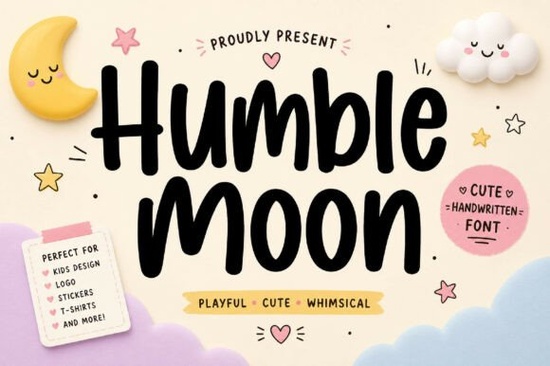
If you've been searching for a bold handwritten font that feels both modern and approachable, Humble Moon Font is worth a close look. It's a display typeface with smooth, playful strokes that work beautifully across logos, packaging, social media graphics, and merchandise. Whether you run a small business or love personal creative projects, this font brings a friendly, eye-catching personality to anything you design.
What Makes Humble Moon Font Stand Out?
Plenty of handwritten fonts exist, but not all of them balance boldness with warmth. Humble Moon does both. The letterforms are thick enough to command attention on a screen or printed surface, yet the natural flow of the strokes keeps everything feeling relaxed and approachable.
Here's what you get with this font:
- Bold weight that reads clearly at large and small sizes
- Smooth, rounded strokes with a hand-lettered feel
- Modern character shapes that avoid looking overly casual or childish
- Versatile punctuation and numerals for complete design layouts
It's the kind of typeface that makes a brand feel human without sacrificing professionalism.
What Can You Actually Use It For?
This is where Humble Moon really proves its value. It fits into a wide range of creative projects:
- Logo design The bold weight and friendly vibe make it a strong choice for brand marks, especially for lifestyle brands, food products, or kids' businesses.
- Print-on-demand products T-shirts, mugs, tote bags, and posters all benefit from a font that pops without looking cluttered.
- Social media content Instagram quotes, story headers, and promotional banners look great with this kind of expressive typeface.
- Packaging design Labels, boxes, and product tags feel more personal with a handwritten display font.
- Website headers Pair it with a clean body font for a homepage that feels inviting from the first scroll.
- Children's products Book covers, birthday invitations, and classroom materials all work well with its playful energy.
Think about any project where you want to feel warm, creative, and confident that's where this font belongs.
How Does It Pair With Other Fonts?
A bold handwritten font rarely works alone. You usually need a secondary typeface for body text or supporting details. Here are a few natural pairings:
- Use a clean sans-serif like Montserrat or Lato underneath for contrast.
- Pair it with a light script for invitations or greeting cards. Something like the flowing style in a lovely script font works nicely as an accent.
- Combine it with a chunky display font for posters that need layered typography. A bold companion like a chunky script font can create interesting visual hierarchy.
- For seasonal or themed designs, pair it with something like a duo font with a relaxed vibe to create full typographic systems.
The key is contrast. Let Humble Moon be the loudest voice on the page and keep everything else calm around it.
Is It a Good Fit for Wedding and Event Designs?
While Humble Moon leans more playful than formal, it can absolutely work for casual weddings, bridal showers, or engagement parties. If you want something with a more elegant, signature feel for upscale events, you might explore a classic wedding signature font for those projects instead.
That said, for rustic weddings, barn-themed celebrations, or boho event invitations, Humble Moon's friendly personality hits the right tone.
What About Planning and Stationery Projects?
Crafters who make planners, journals, and stationery sets often need fonts that are bold enough to act as section headers but still feel handmade. Humble Moon checks that box. If you also need a simpler companion for daily planner layouts, pairing it with a clean planner-friendly font gives you a complete system for headers and body text.
Who Should Download This Font?
This font is a practical addition to your toolkit if you are:
- A print-on-demand seller looking for fresh typography for your product listings
- A small business owner building a brand identity from scratch
- A graphic designer who needs bold handwritten options for client work
- A crafter making invitations, signs, or party decorations
- A content creator who wants social media graphics that feel personal and polished
Starting with just one bold, well-designed font can change how your entire project looks. Humble Moon Font is a solid, affordable option that gives you personality without overcomplicating your designs.